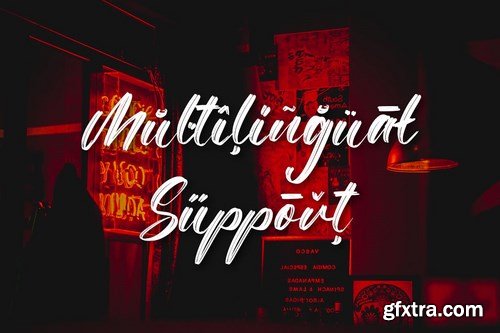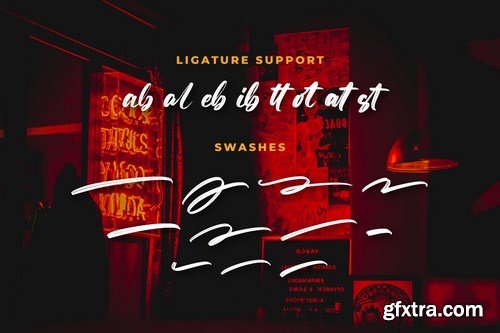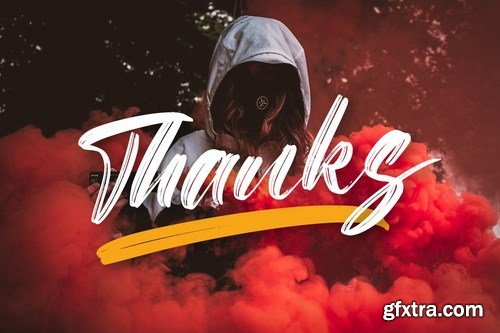
Attacks is an organic brushed handwritten font. No matter the topic, this font will be an incredibly asset to your fonts’ library, as it has the potential to elevate any creation.
Modern Brush Font
Special Ligatures
Multilingual Support